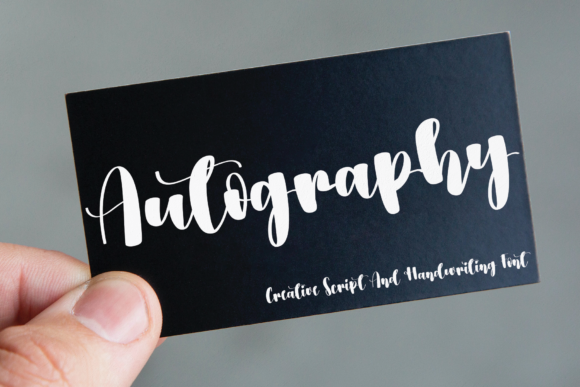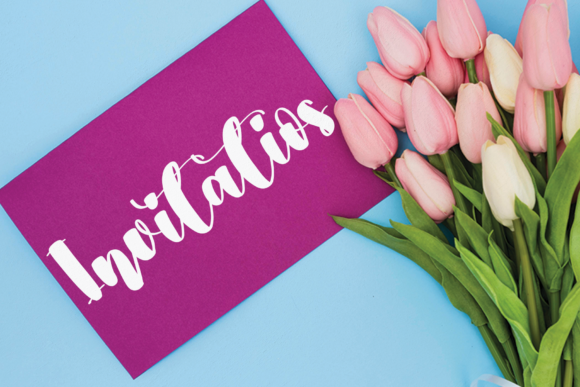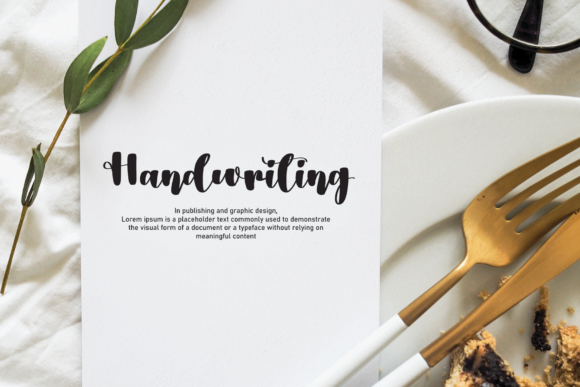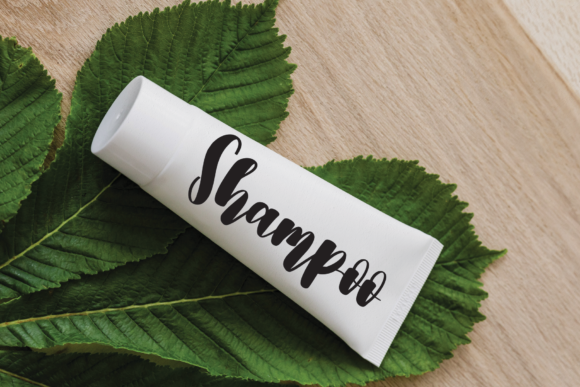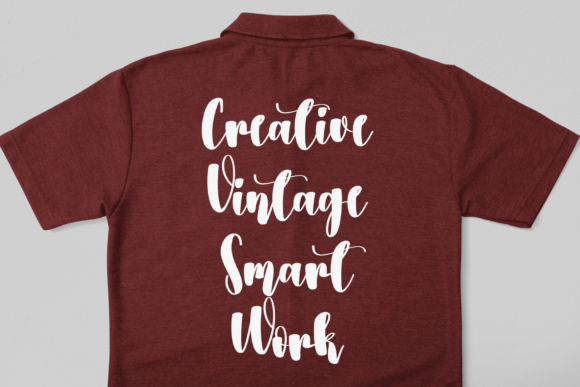
Autography Font
About Autography Font
Autography is one creative script and handwriting font, perfect for fashion, magazines, invitations, cards, quotes, branding, labels, and many more!